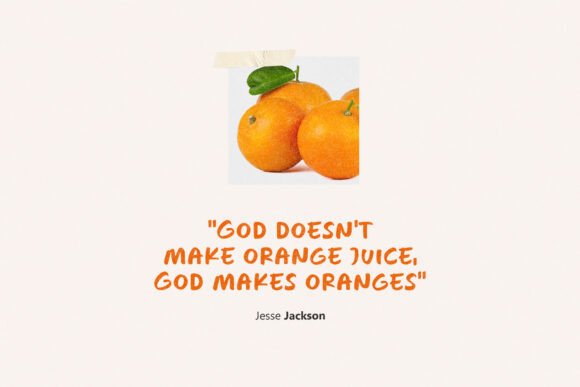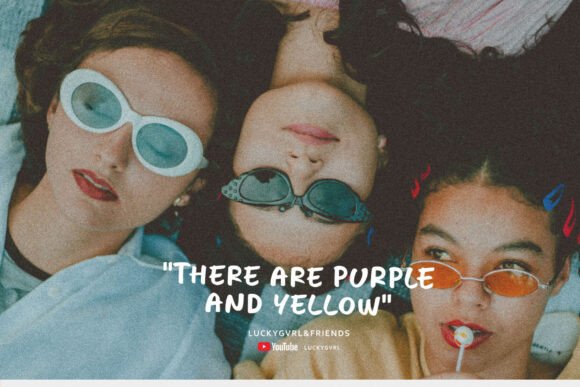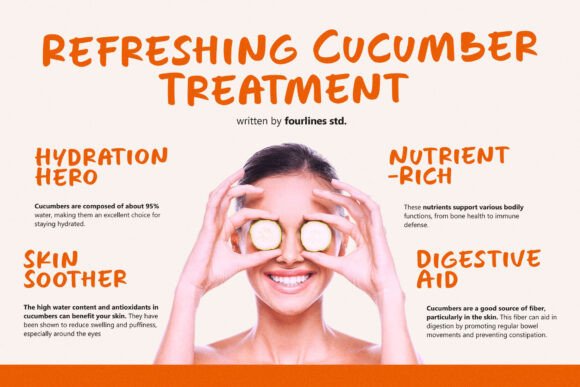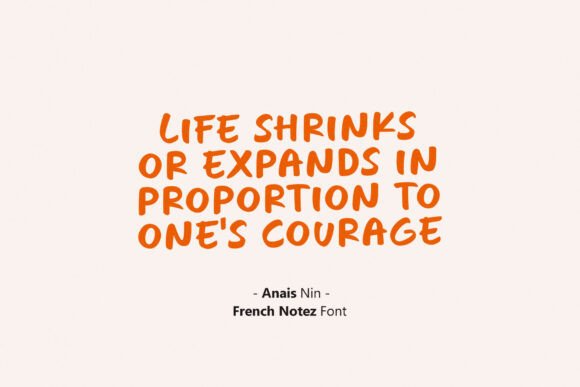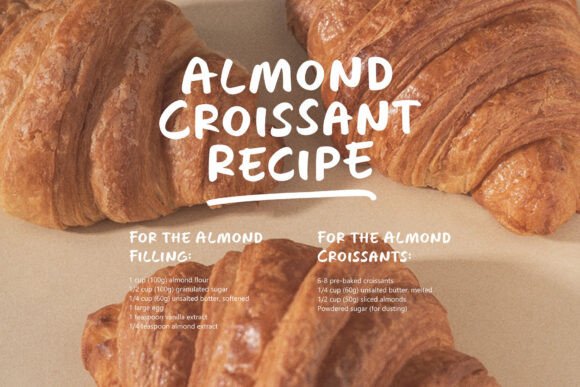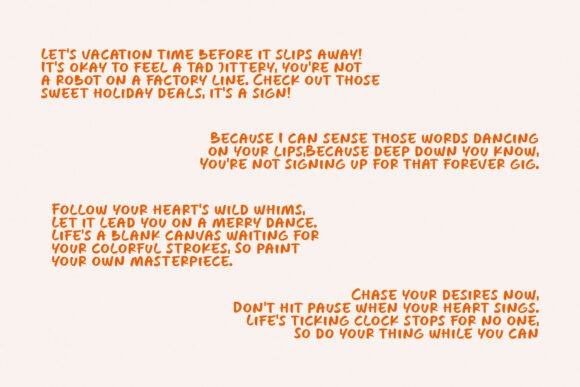
Introducing French Notez Font: The Modern Handwritten Style for Creative Expression
In the world of typography, fonts play a crucial role in conveying the tone and personality of a brand, project, or creative endeavor. With the numerous font options available, it can be challenging to find the perfect one that adds a unique touch to your work. However, if you’re looking for a modern, handwritten font that exudes confidence and creativity, look no further than French Notez Font.
The Inspiration Behind French Notez Font
French Notez Font is a beautiful, handwritten font that draws inspiration from the striking strokes of a marker. The font’s design is characterized by its relaxed yet bold style, making it an excellent choice for designers, crafters, and brands seeking to make a statement. The font’s creator aimed to develop a typeface that would add a modern flair to creative projects, and French Notez Font certainly delivers.
Key Features of French Notez Font
So, what makes French Notez Font stand out from other fonts? Here are some of its key features:
- Handwritten style: French Notez Font boasts a beautiful, handwritten style that adds a personal touch to your work.
- Marker-inspired strokes: The font’s bold, marker-inspired strokes give it a unique and modern look.
- Relaxed yet bold design: French Notez Font strikes the perfect balance between being relaxed and bold, making it suitable for a wide range of creative projects.
- Versatile: This font is perfect for brands, social media, promotional materials, and any other project that requires a modern, eye-catching typeface.
Use Cases for French Notez Font
French Notez Font is an incredibly versatile typeface that can be used in various contexts. Here are some use cases where this font truly shines:
- Branding: Use French Notez Font to create a unique and memorable brand identity that stands out from the competition.
- Social Media: Add a touch of personality to your social media posts and stories with this modern, handwritten font.
- Promotional Materials: Make a statement with French Notez Font on your brochures, flyers, posters, and other promotional materials.
- Packaging Design: Use this font to add a personal touch to your product packaging and make it more eye-catching.
Tips for Using French Notez Font Effectively
To get the most out of French Notez Font, here are some tips to keep in mind:
- Pair it with a neutral font: Balance out the boldness of French Notez Font by pairing it with a neutral font for body text.
- Experiment with colors: Play around with different colors to find the perfect combination that complements your brand or project’s aesthetic.
- Use it sparingly: While French Notez Font is a beautiful typeface, it’s best to use it sparingly to avoid overwhelming your design.
French Notez Font is a stunning, handwritten typeface that adds a modern flair to creative projects. Its unique blend of relaxed and bold design makes it perfect for brands, social media, promotional materials, and more. With its versatility and eye-catching style, French Notez Font is sure to become a favorite among designers and crafters. So, why not give it a try and see how it can elevate your creative endeavors?